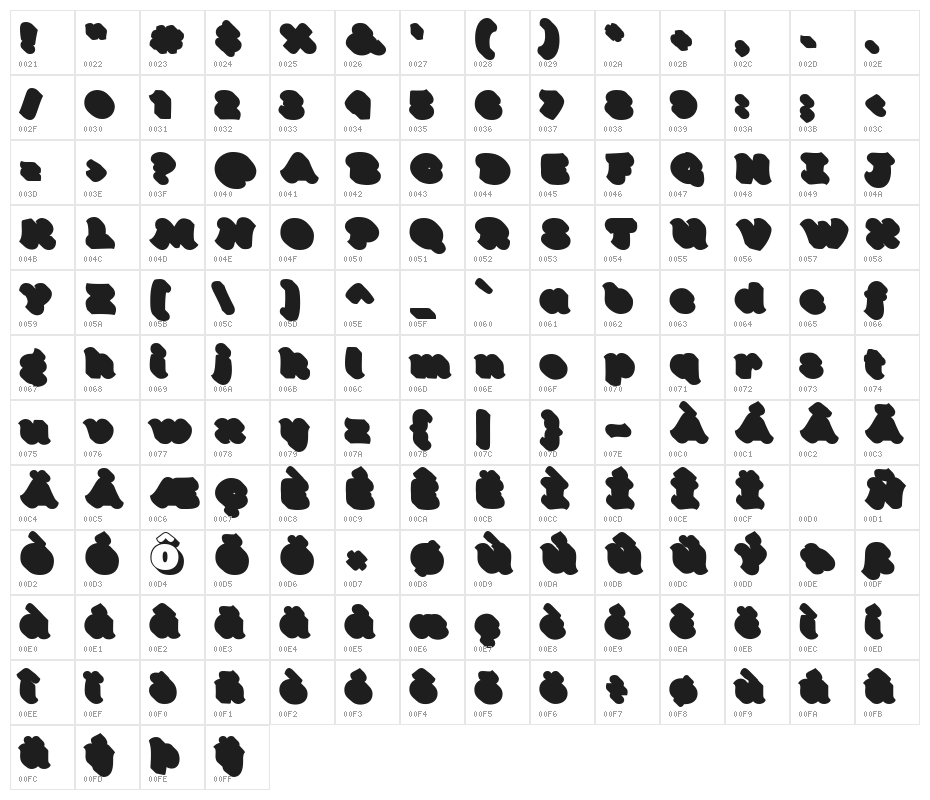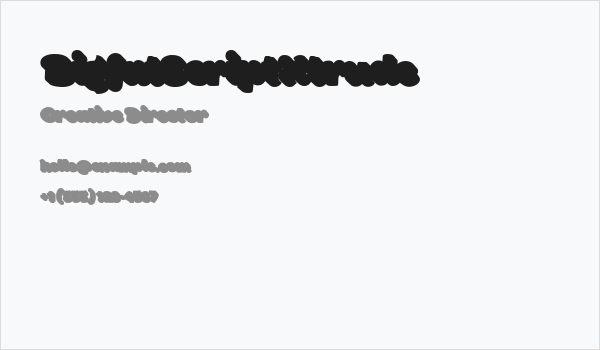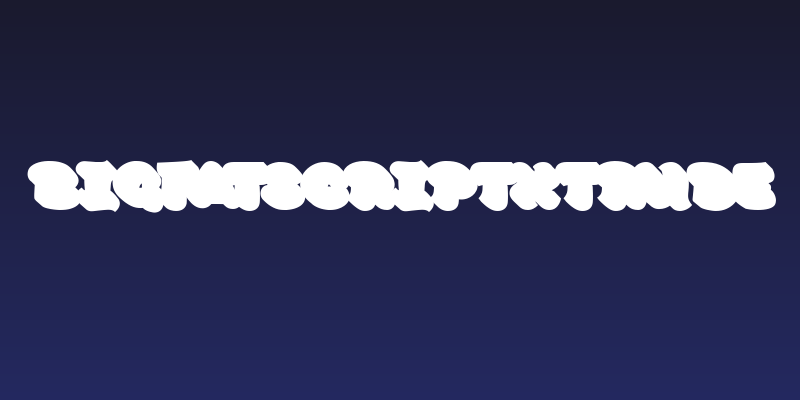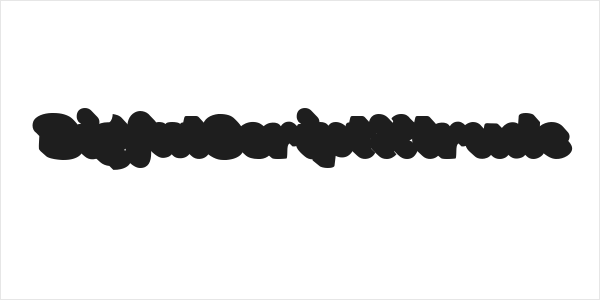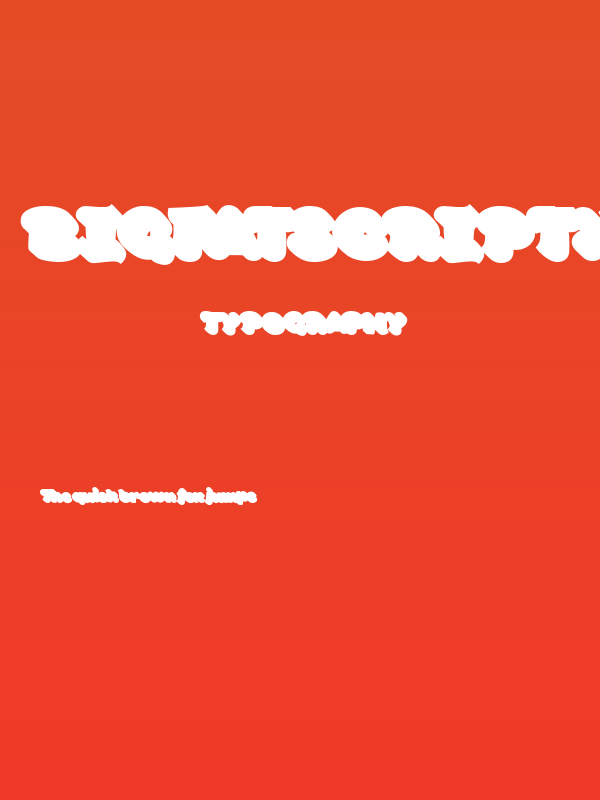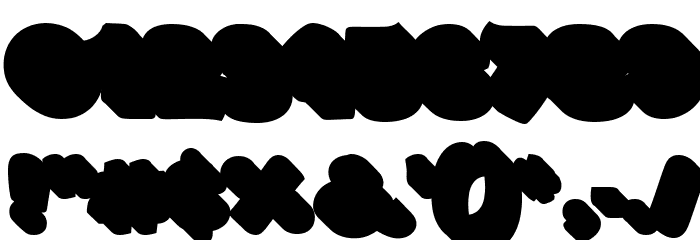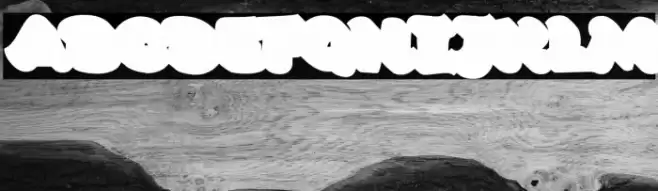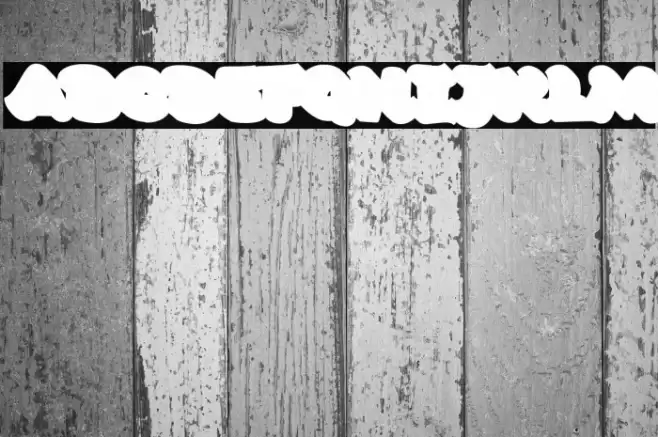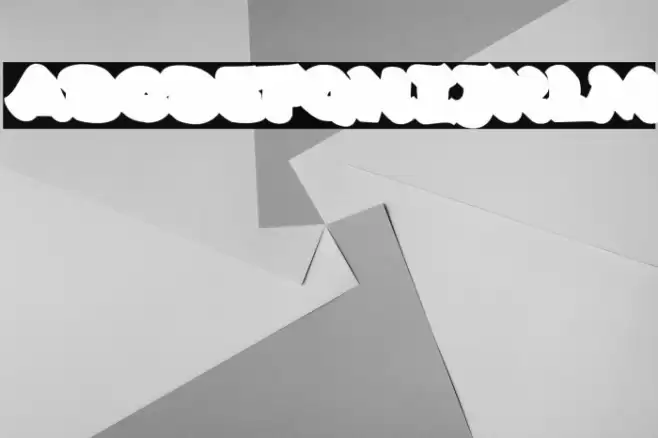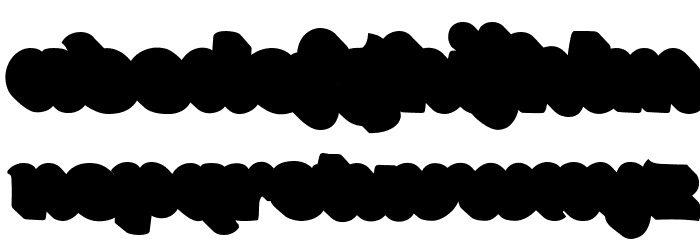
BigfatScriptXtrude Font
| Breite | Expanded |
| Gesamtstil | Playful, Bold, Whimsical |
| Vorgeschlagene Projekte | Ideal for children's book covers, playful branding, event posters, and any design that requires a fun and bold statement. |